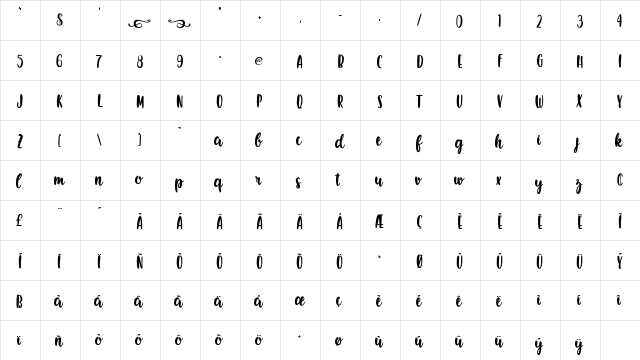
Earth Quest Regular
| Foundry | Typhoon Type - Suthi Srisopha |
| Designer | Typhoon Type - Suthi Srisopha |
Design Context for Earth Quest Typeface
Earth Quest is a composed and adaptable typeface that performs quietly and consistently across a wide range of design contexts.